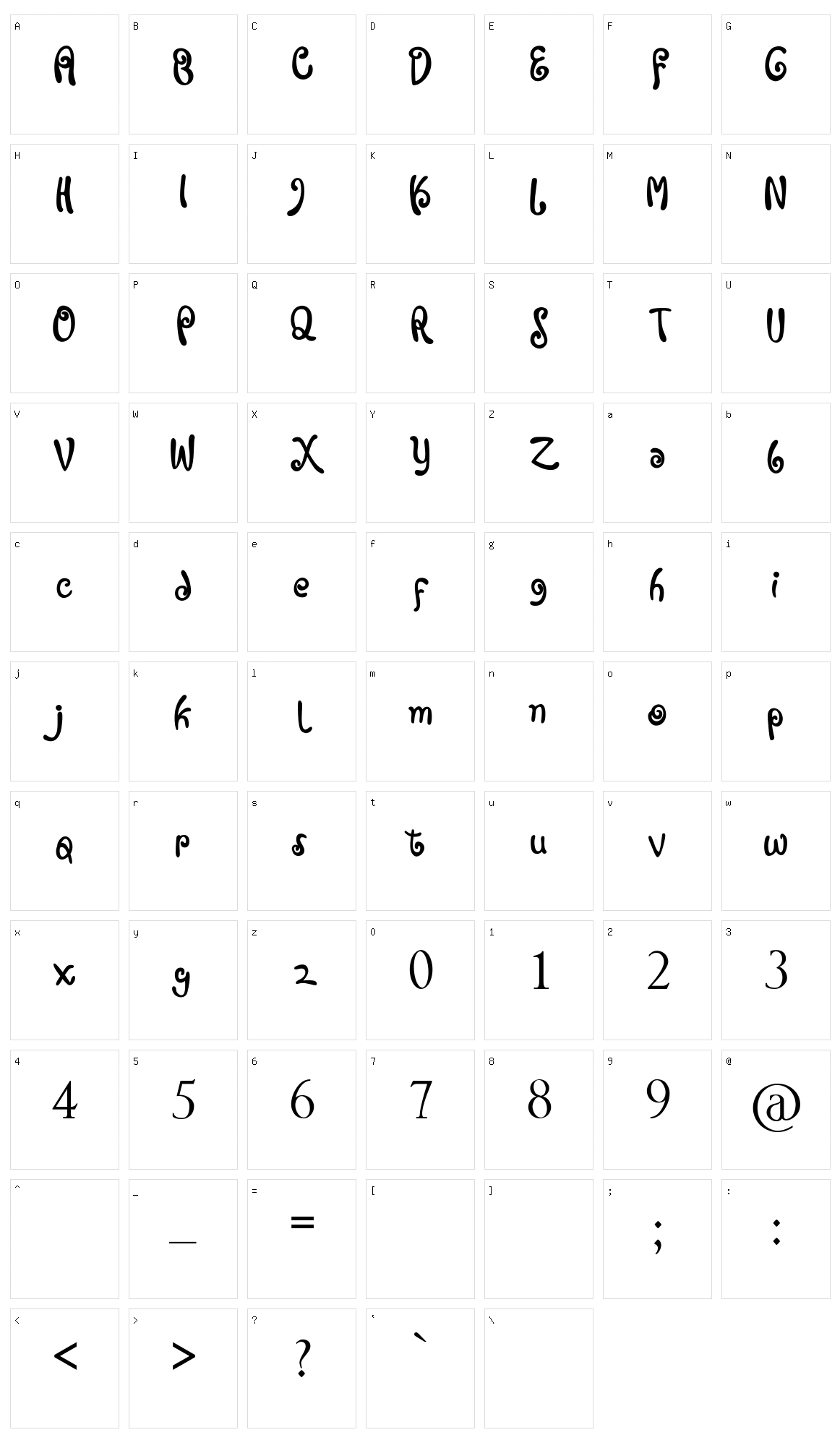
The free font Swaylea is carefully designed by 160 Studio, showcasing a thoughtful balance of creativity and usability and falls under the Script font style. When you download the ZIP file, it contains only 15.71 KB of font files, making it lightweight and quick to download. Please review the license details below to understand permitted usage and distribution rights. If license information is not available, we recommend using this font for personal projects only or contacting the author directly for commercial usage permissions.